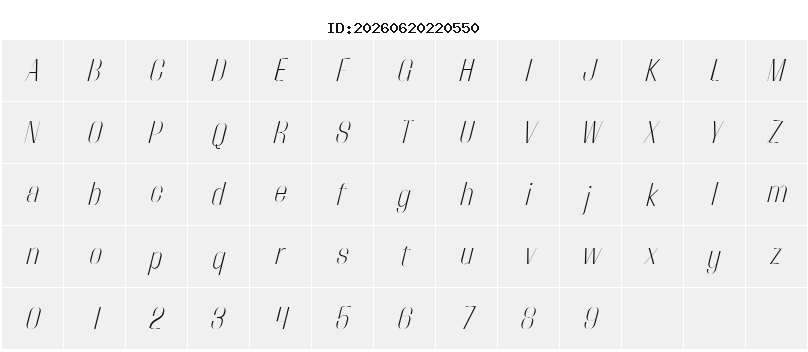
• Font Name: Thunder ExtLt Ita
• Full Font Name: Thunder Extra Light HC Italic
• PostScript Name: Thunder-ExtraLightHCItalic
• Designer: Rajesh Rajput
• Manufacturer: Rajesh Rajput
About Thunder ExtLt Ita.ttf
Thunder ExtLt Ita.ttf is a modern, elegant sans-serif font designed for ultimate readability and visual harmony. Perfect for branding, headlines, web design, and print materials.